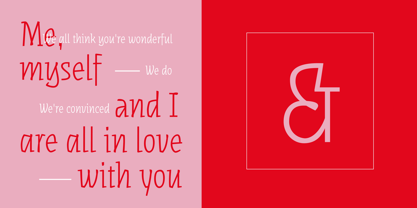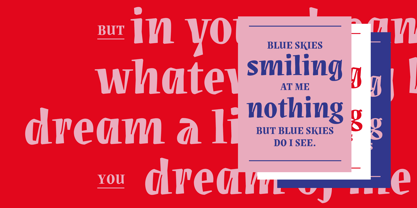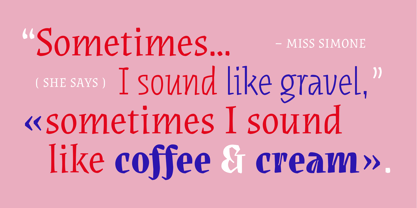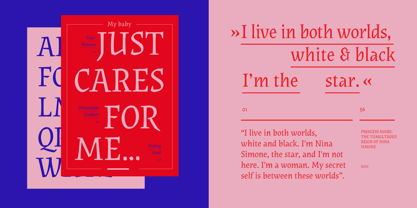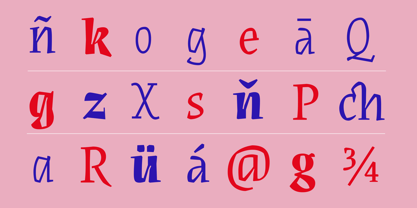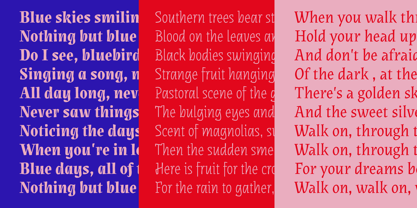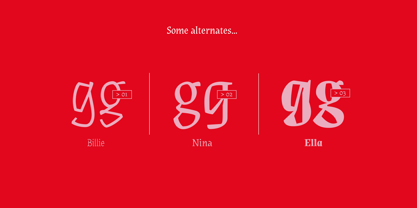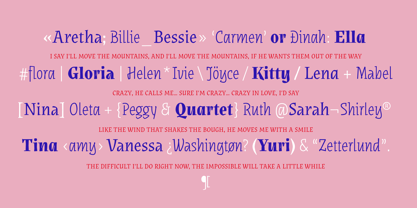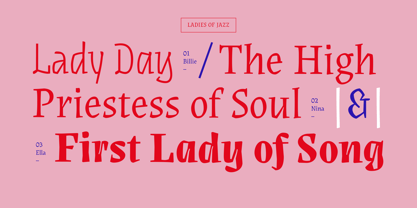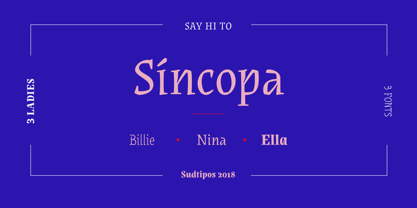
Sincopa
von Sudtipos
Die Schriftfamilie Sincopa wurde von Fernanda Cozzi entworfen und von Sudtipos veröffentlicht. Sincopa enthält 3 Stile.
Síncopa is named after syncopation, the unexpected, uneven, or offbeat rhythms in music. Syncopation transforms a regular metronomic beat into something that stirs us to feel, move, or dance. The Síncopa typeface family explores these forces of stability and dynamism, of the beat and the offbeat. Inspired by three queens of jazz – Billie, Nina, and Ella – Síncopa seeks to emulate their bold voices and distinctive personalities with highly contrasting strokes and eclectic letterforms.